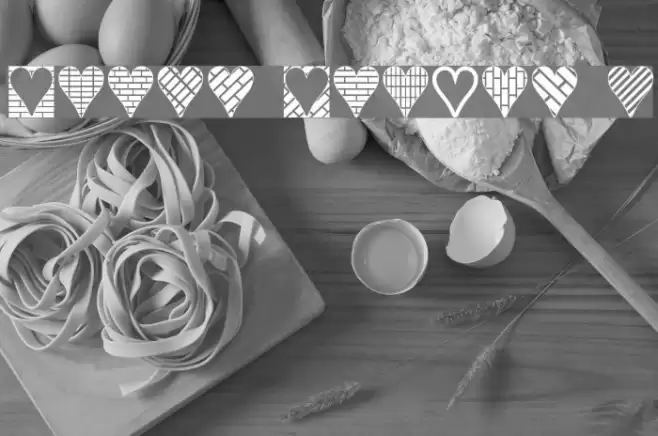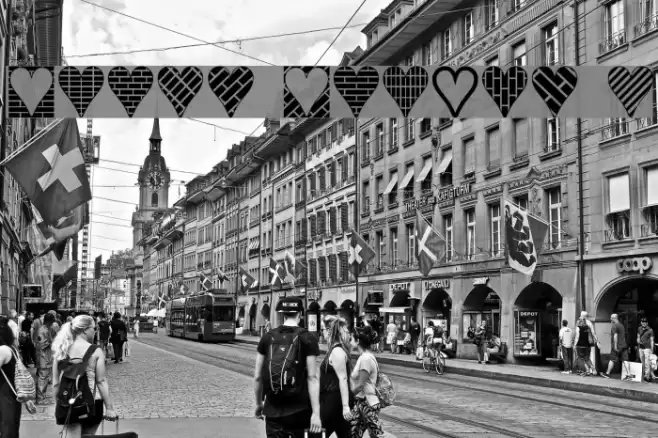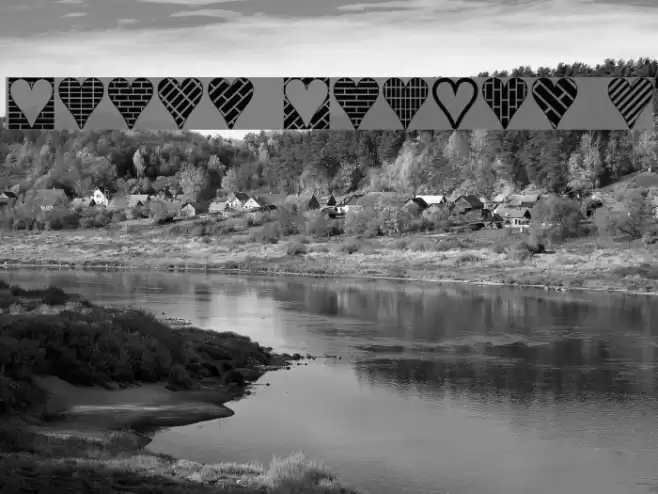
Heart Things 3 Font
Heart Things 3 Description
A decorative dingbat font featuring a variety of heart shapes filled with different patterns such as stripes, dots, grids, and geometric designs. Each character is a unique heart motif, with some enclosed in squares and others standalone. The style is playful and visually engaging, with high contrast between black and white elements.
Patterned heart dingbat font with diverse decorative fills from Valentine fonts.
- Font: Heart Things 3
by fontsnthings - Weight: Normal
- Contrast: High
- Overall Style: Decorative, Playful
- Use Case: Decorative elements, Borders, Themed graphics